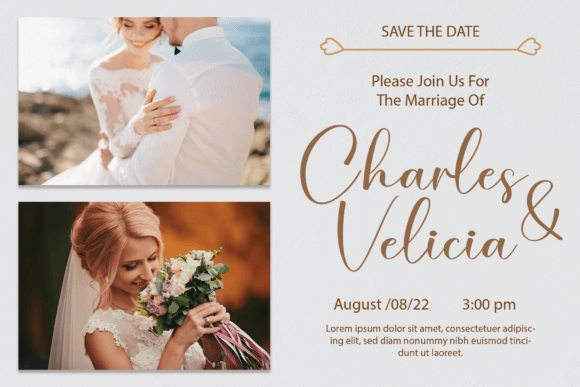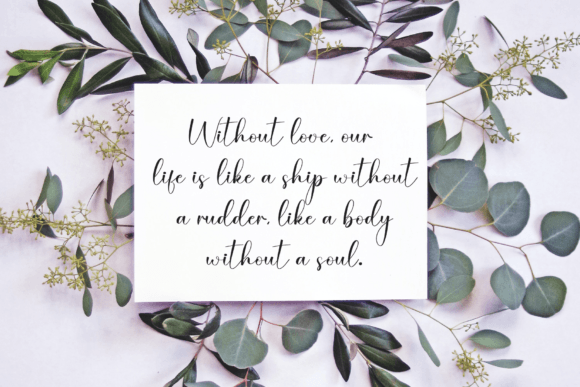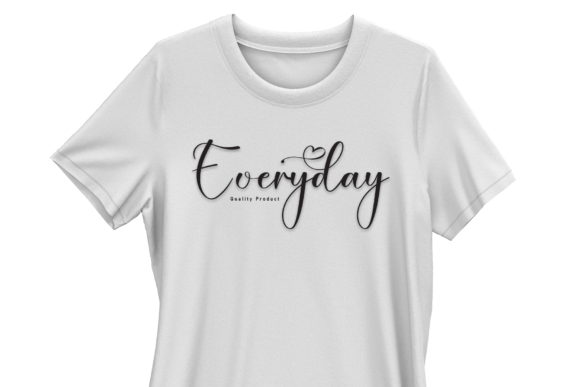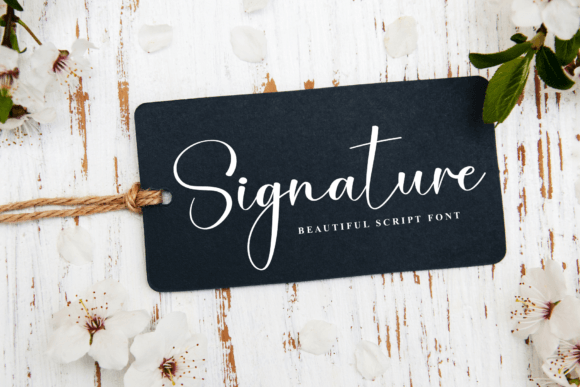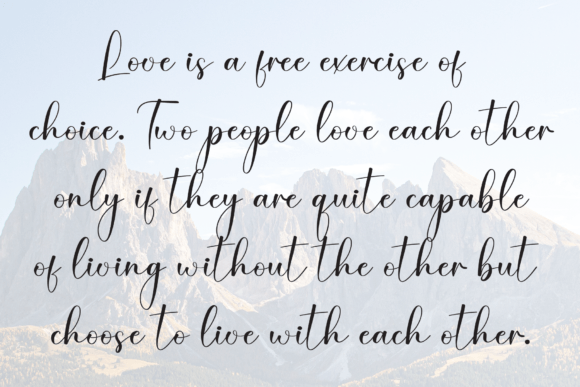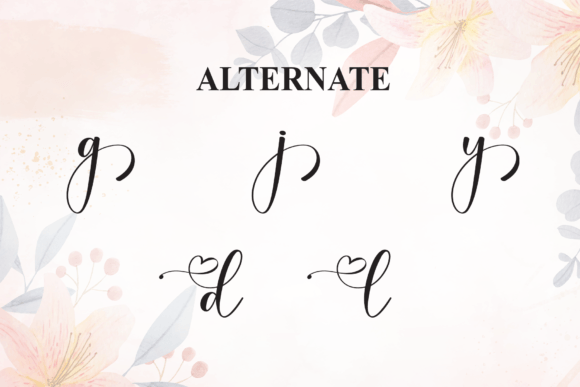
Ainsley Font: Elevate Your Designs with a Stylish and Bold Handwritten Touch
In the world of typography, a font can make or break a design. Ainsley font is a stunning example of a bold and beautiful handwritten font that can instantly elevate your headlines and logotype projects. Crafted with precision and passion, Ainsley is designed to add a stylish touch to your designs, making them stand out from the crowd.
The Characteristics of Ainsley Font
Ainsley font reads as strong, confident, and dynamic, making it perfect for designers who want to create a lasting impression. Its bold and beautiful strokes exude a sense of nostalgia, adding a touch of classic charm to your designs. Whether you’re working on a logo, headline, or any other project that requires a statement piece, Ainsley font is an excellent choice.
What Makes Ainsley Font So Special?
Ainsley’s unique characteristics make it a standout font in the world of typography. Here are a few reasons why Ainsley font should be your go-to choice for your next design project:
• Bold and Beautiful: Ainsley font features bold strokes that add a touch of drama to your designs. Its beautiful letterforms are crafted to make a statement, making it perfect for headlines, logotypes, and other attention-grabbing projects.
• Nostalgic Character: Ainsley font has a classic charm that adds a touch of nostalgia to your designs. Its vintage feel makes it perfect for projects that require a retro or vintage touch.
• Versatile: Ainsley font is incredibly versatile, making it suitable for a wide range of design projects. From logos and headlines to packaging and branding, Ainsley font can be used in various contexts to add a stylish touch.
• Easily Readable: Despite its bold strokes, Ainsley font is easily readable, making it perfect for projects that require a clear and concise message.
How to Use Ainsley Font in Your Designs
Using Ainsley font in your designs is incredibly easy. Here are a few tips to get you started:
• Pair it with Other Fonts: Ainsley font pairs well with other fonts, making it easy to create a unique and visually appealing typography combination. Try pairing it with a sans-serif font for a modern contrast or a script font for added elegance.
• Experiment with Colors: Ainsley font looks stunning in a variety of colors. Experiment with different hues and shades to find the perfect color combination that matches your brand’s identity.
• Use it for Headlines and Logotypes: Ainsley font is perfect for headlines and logotypes, making it an excellent choice for branding and advertising projects.
Who Can Benefit from Ainsley Font?
Ainsley font is perfect for designers, crafters, and businesses looking to add a stylish touch to their designs. Here are a few examples of who can benefit from Ainsley font:
• Graphic Designers: Graphic designers can use Ainsley font in a variety of projects, from branding and advertising to packaging and marketing materials.
• Crafters and Artists: Crafters and artists can use Ainsley font to add a personal touch to their handmade products, such as stationery, cards, and other paper crafts.
• Business Owners: Business owners can use Ainsley font to create a unique and memorable brand identity that sets them apart from their competitors.
Ainsley font is a stunning example of a bold and beautiful handwritten font that can instantly elevate your designs. Its unique characteristics, versatility, and nostalgic charm make it perfect for designers, crafters, and businesses looking to add a stylish touch to their projects. Whether you’re working on a logo, headline, or any other design project, Ainsley font is an excellent choice. So why wait? Give Ainsley font a try today and take your designs to the next level!